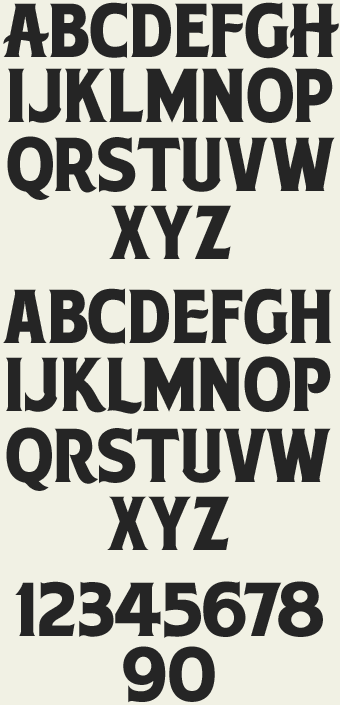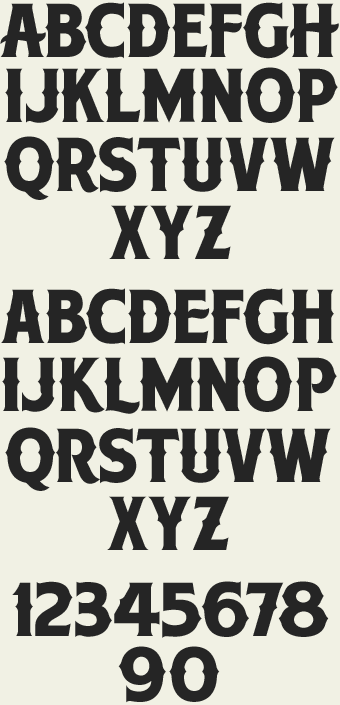
Hensler 2by Chuck Davis |
The original Hensler font released in 2002 has now been completely overhauled. Hensler 2 features all new redrawn and restyled letters, improved kerning and added alternate characters. Both fonts are bold, commanding and yet suprisingly easy to read— even at small sizes. Set includes 2 versions, Regular & Spurs with bonus alternates.
Hensler 2 Regular
Hensler 2 Spurs